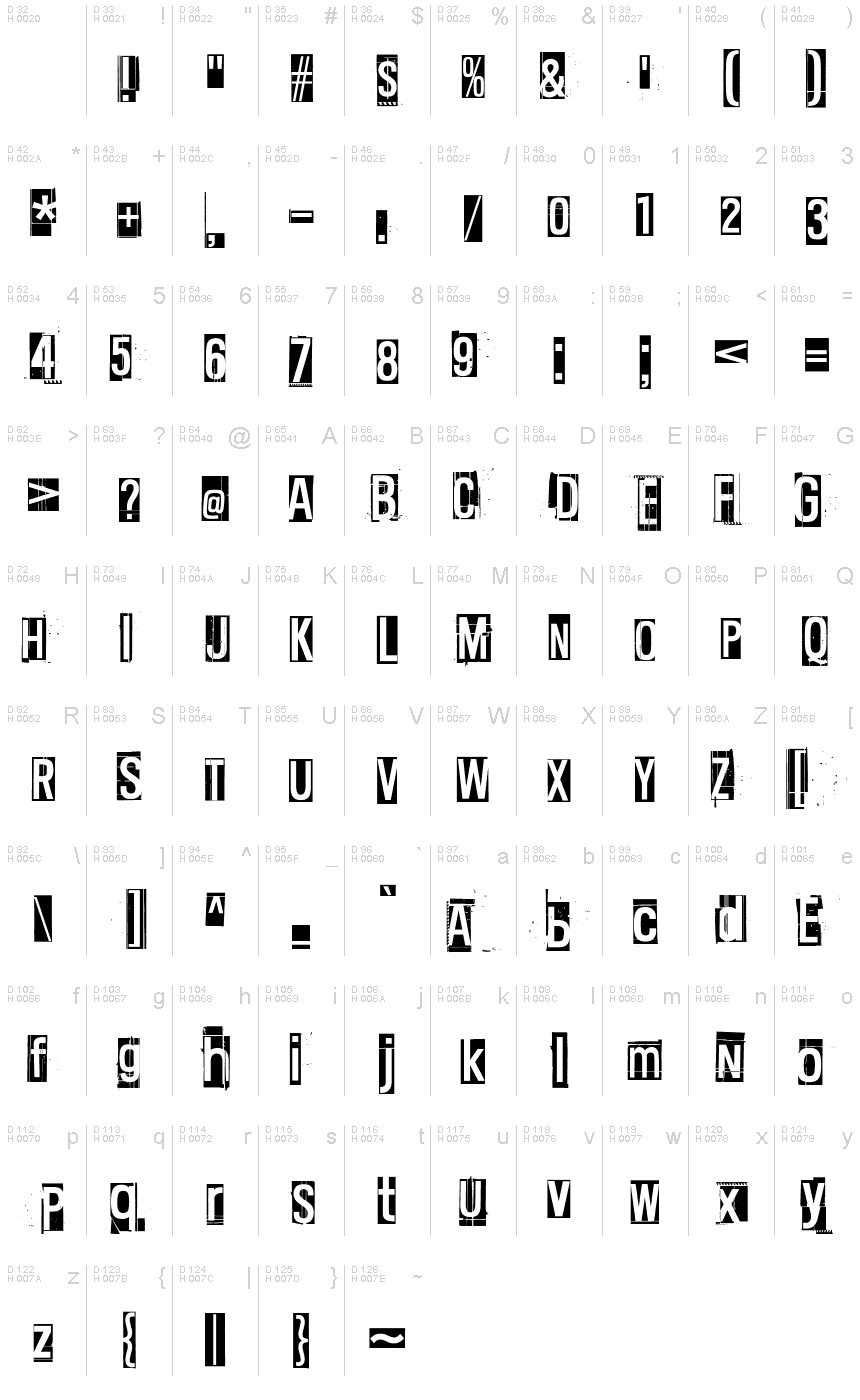
Black clouds, white sky
Black Clouds, White Sky is a captivating display font by junkohanhero. With its distorted and negative style, this font adds an edgy and unconventional touch to any project.
Its condensed width enhances the overall impact, making it perfect for eye-catching headlines, album covers, and poster designs that demand attention. Whether you're working on a music festival campaign or a rebellious fashion brand promotion, Black Clouds, White Sky is the ideal choice to infuse your creations with an avant-garde vibe that will leave a lasting impression.
Unleash your creativity with this unique and typeface!